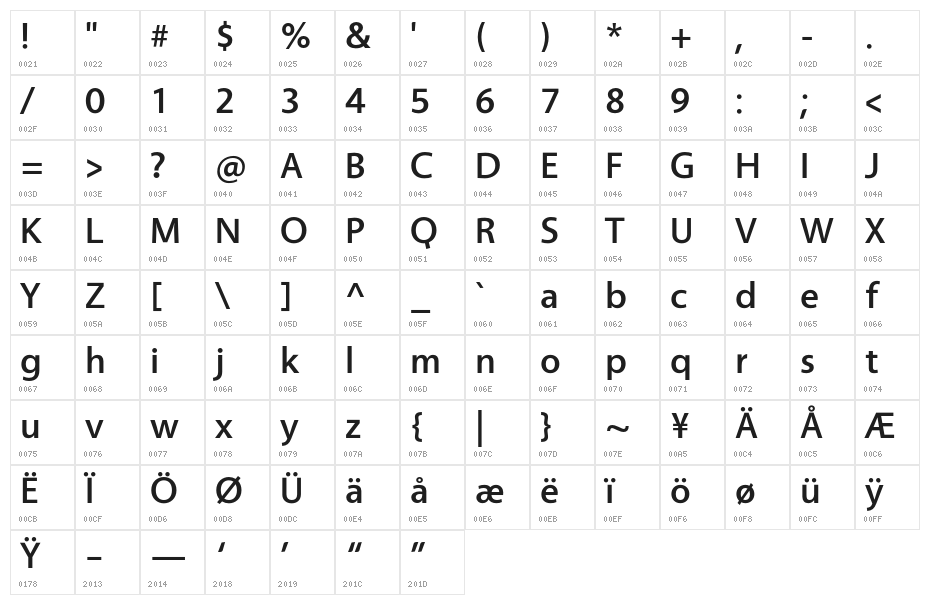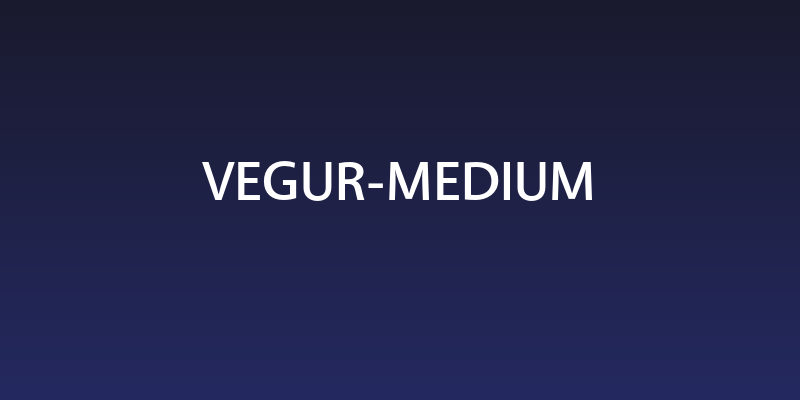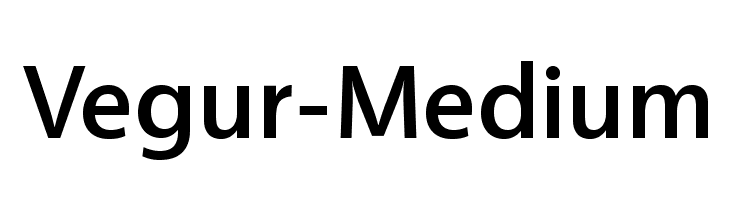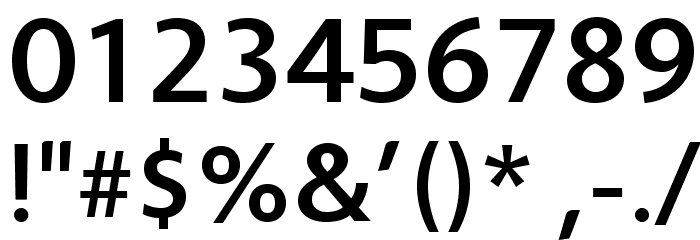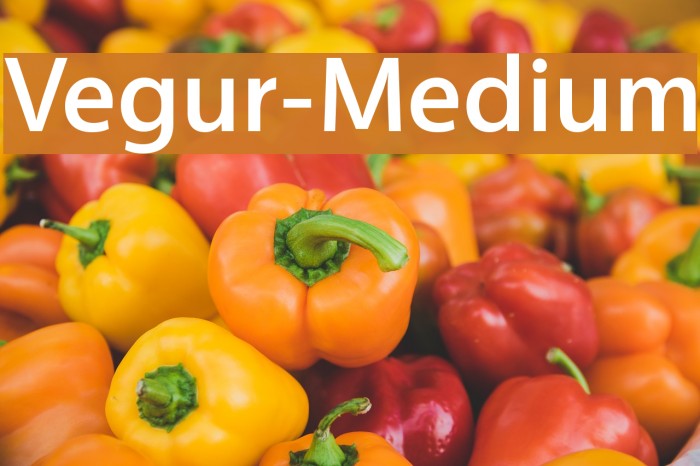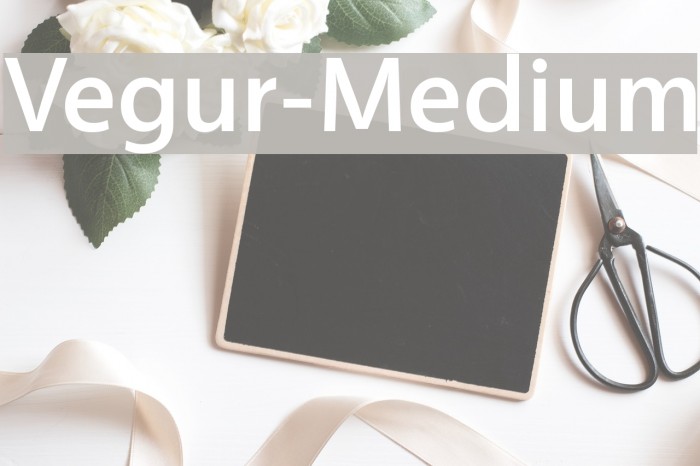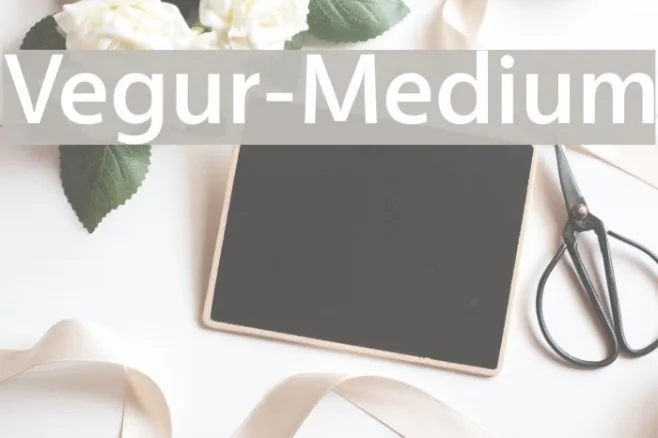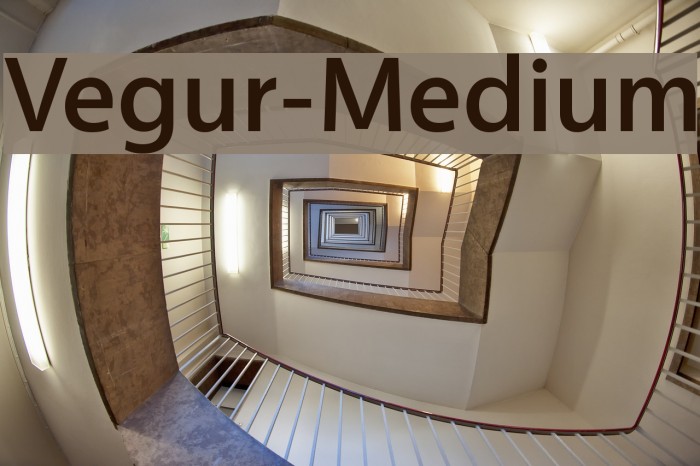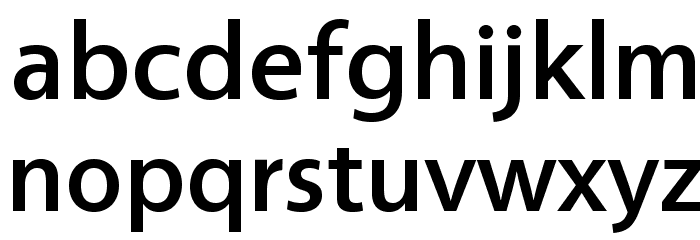
Vegur-Medium Font
Vegur-Medium Description
This typeface presents a clean and modern aesthetic with a sans-serif style, characterized by its simplicity and readability. The letters are evenly spaced, contributing to a balanced and harmonious appearance. The strokes are consistent in weight, offering a medium contrast that enhances legibility without sacrificing style. The font's geometric shapes and smooth curves give it a contemporary feel, making it suitable for a wide range of applications. Its versatility is evident in its ability to maintain clarity and elegance across both uppercase and lowercase letters, as well as numerals and special characters.